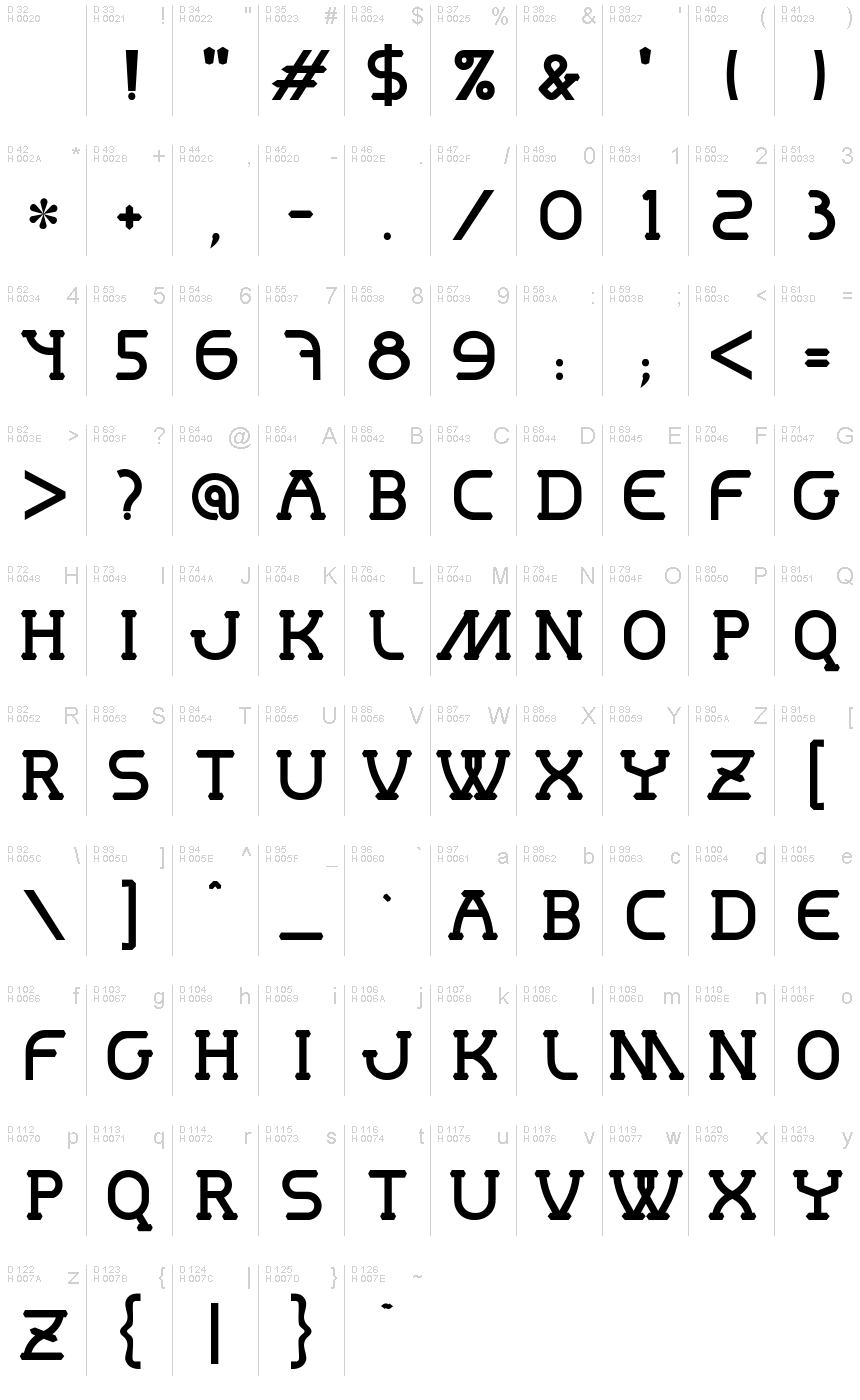
Mastum
Mastum, a captivating display font crafted by Max Infeld of Xerographer Fonts, exudes a distinct allure. With its bold, angular letterforms and striking visual presence, this font commands attention, evoking a sense of strength and modern sophistication. The Mastum font's unique design elements seamlessly blend geometric shapes and fluid curves, creating a harmonious and eye-catching typographic aesthetic.
Mastum's versatility shines through its ability to seamlessly adapt to diverse design applications, from eye-catching headlines and impactful branding to striking editorial layouts and captivating digital interfaces. Its bold and confident personality makes it an ideal choice for projects seeking to convey a sense of power, authority, or a contemporary edge.